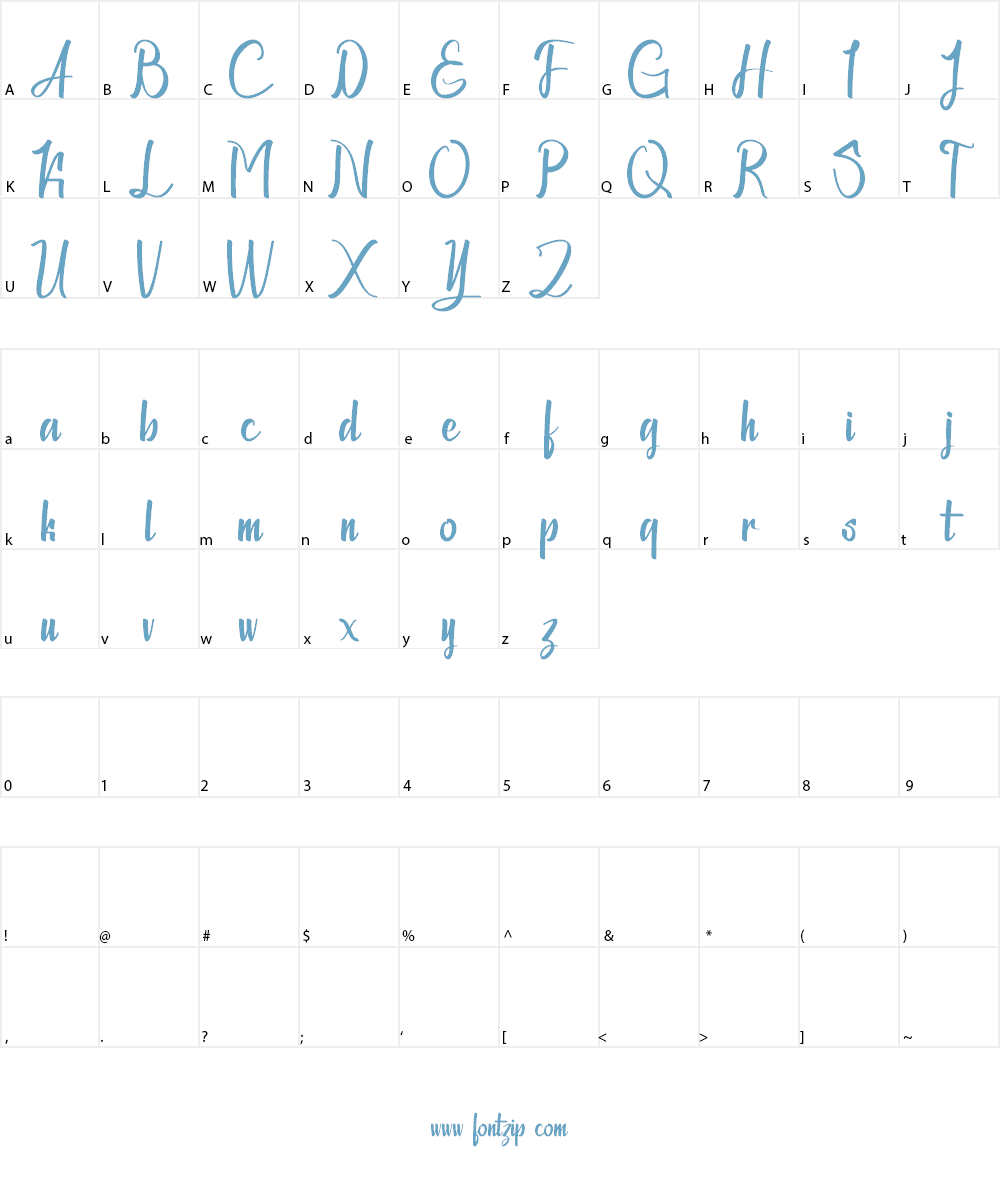
introduce "Chapline".
script font that just released
fonts that are equipped starting from uppercase, lowercase, punctuation, numbers, multilingual and there are ligature and alternates ..